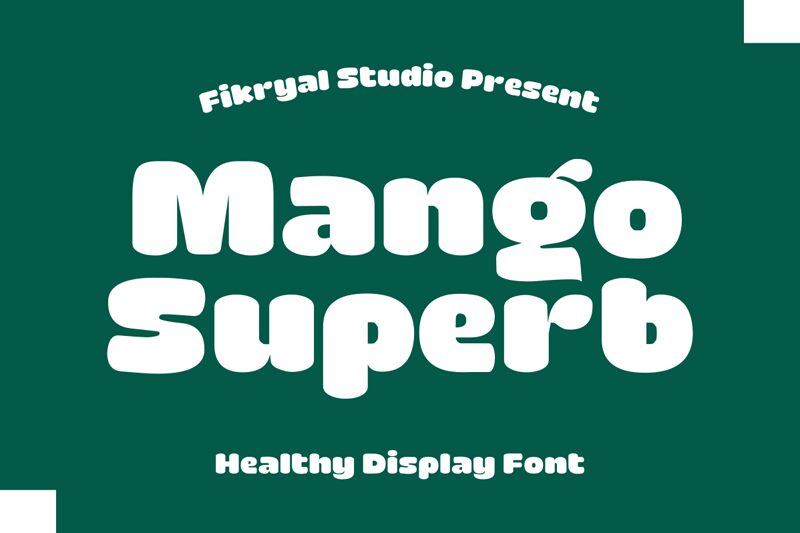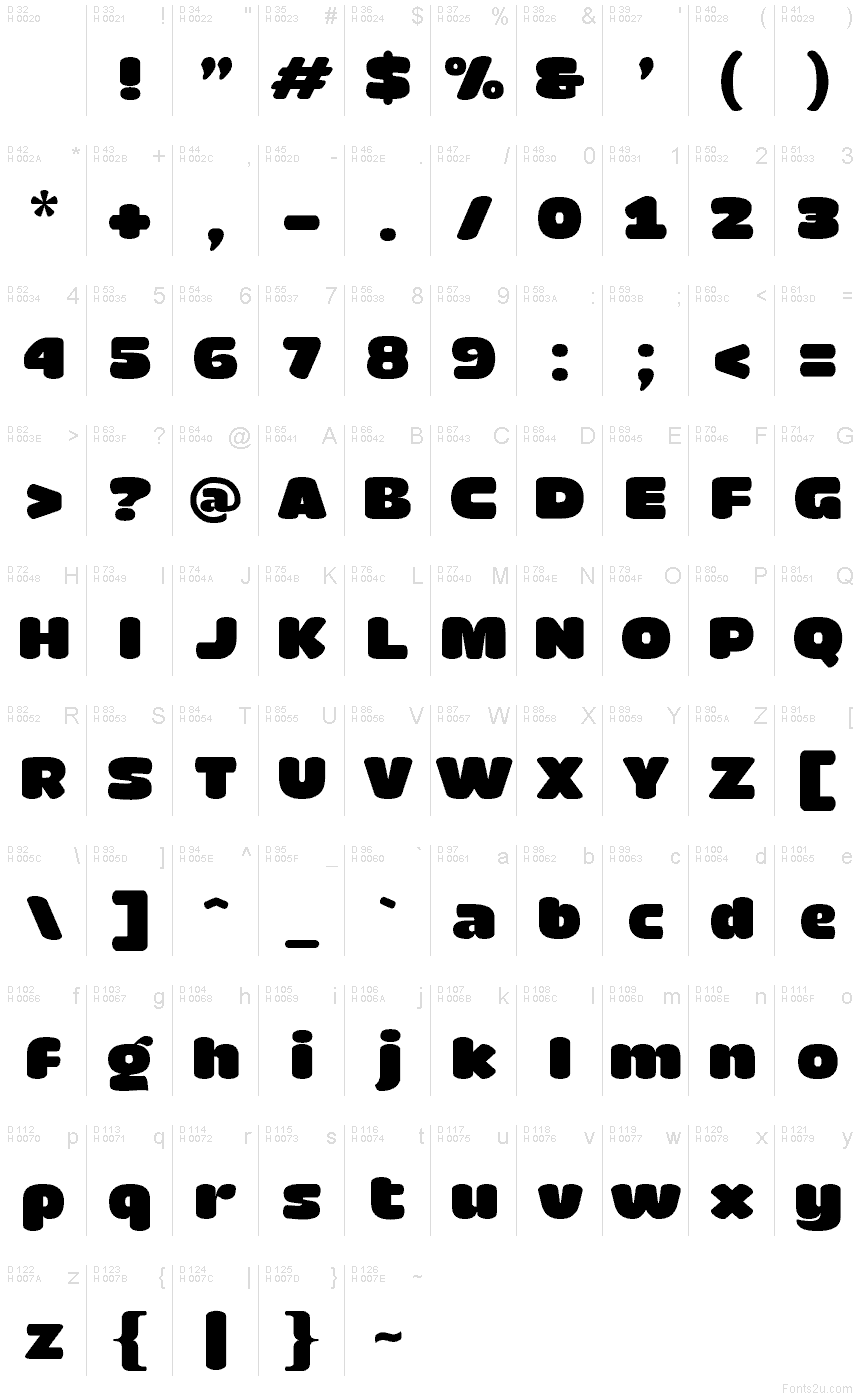
Mango Superb
Mango Superb font by Fikryal studio is a free playful display typeface with big, pillowy curves and inky, all-caps energy. Each letter feels soft and bouncy, like bubble lettering pressed into thick poster paint, giving headlines a juicy, friendly punch. The tight rhythm and rounded corners keep it bold yet approachable, so it grabs attention without feeling shouty or harsh.
Using Mango Superb, this free font shines on kids’ products, snack and beverage packaging, festival posters, game titles, social media graphics, and bold logo wordmarks. Its chunky forms stay readable even at smaller headline sizes, but it really pops when scaled up. Pair Mango Superb with a clean, light sans serif for body copy to balance its weight and keep layouts fresh and fun.